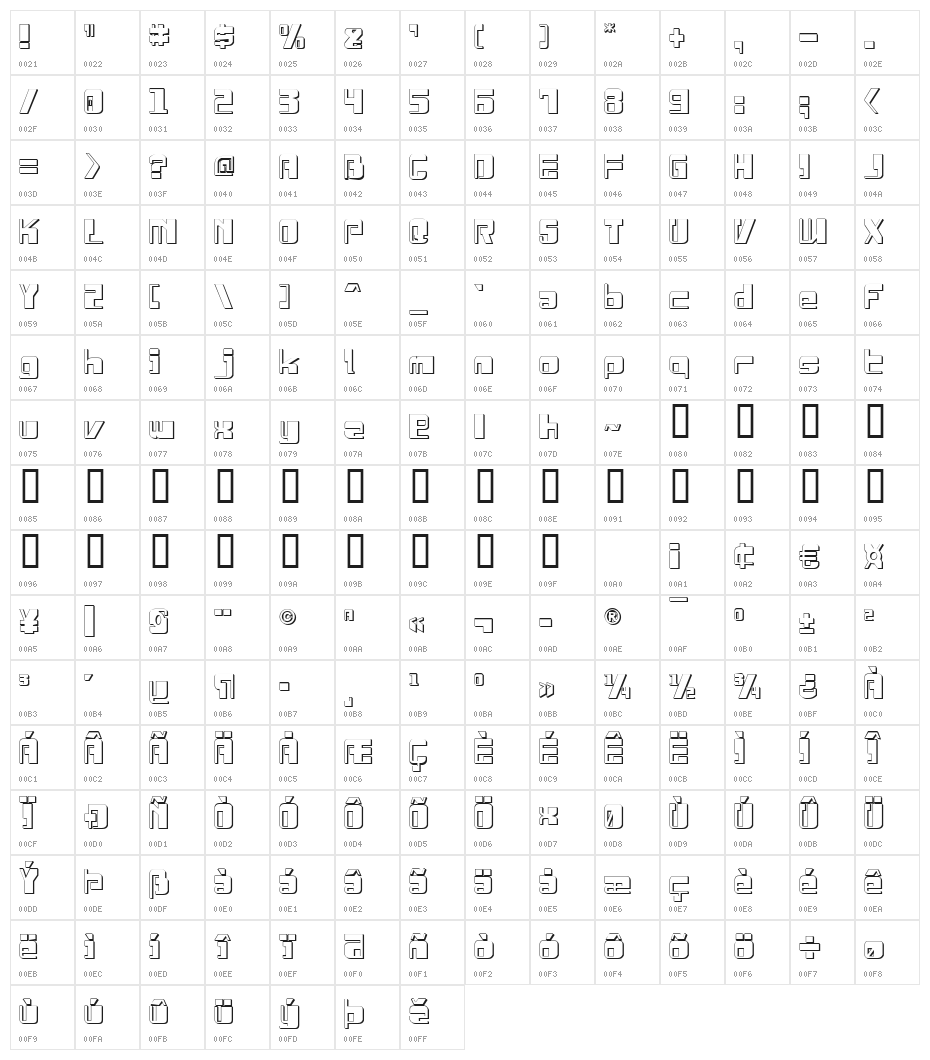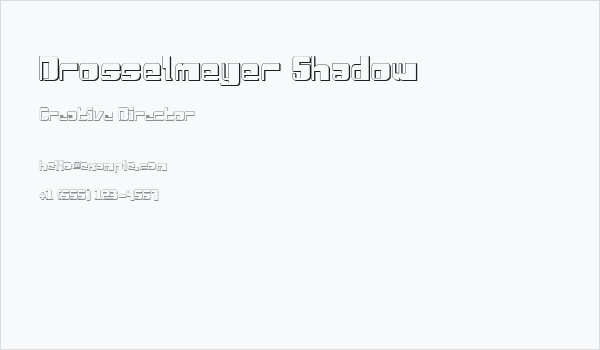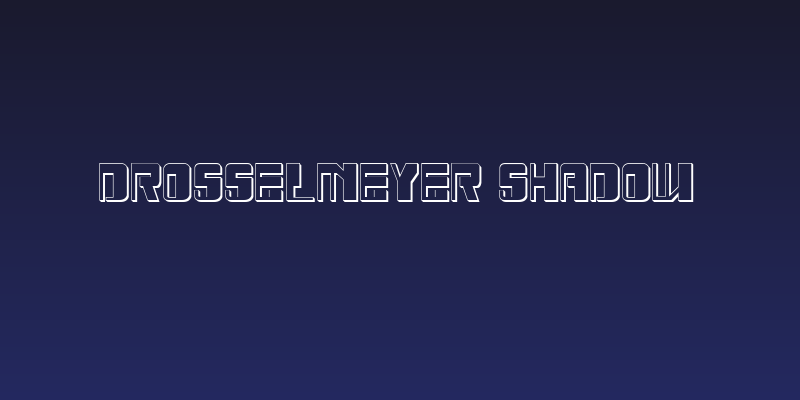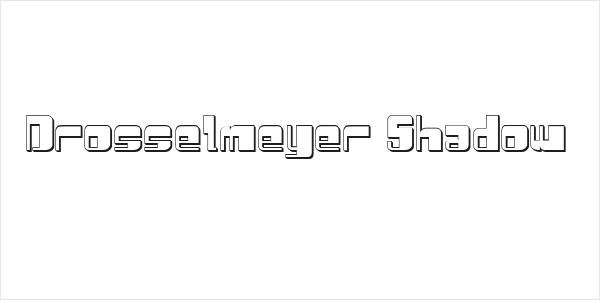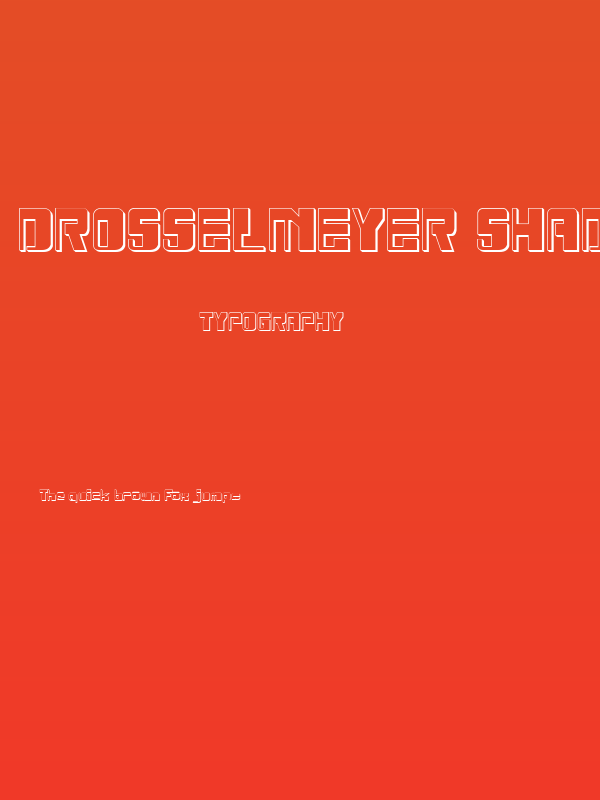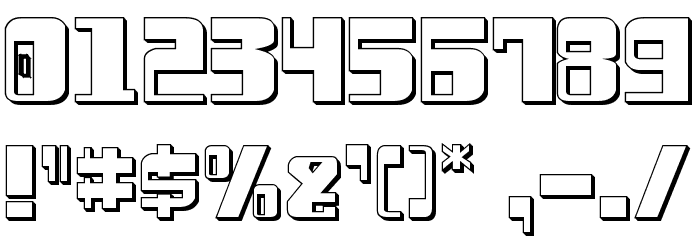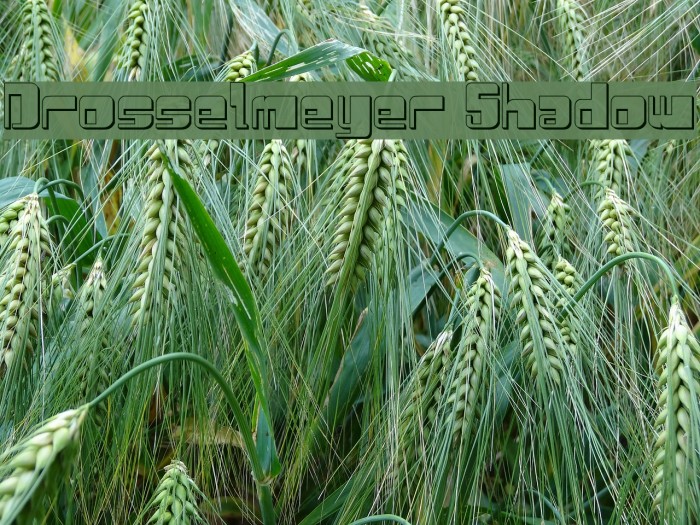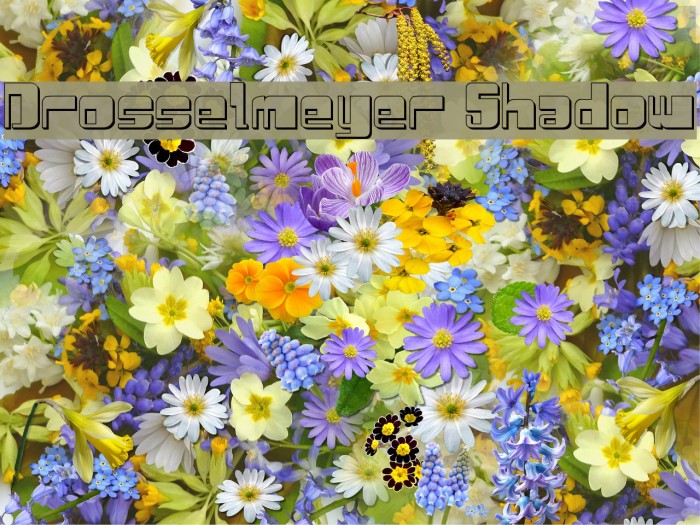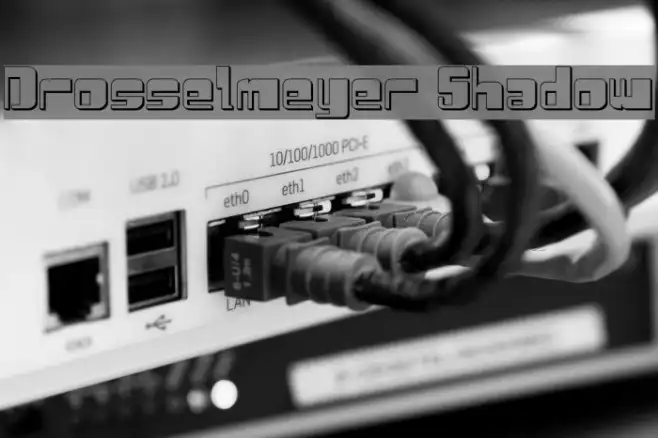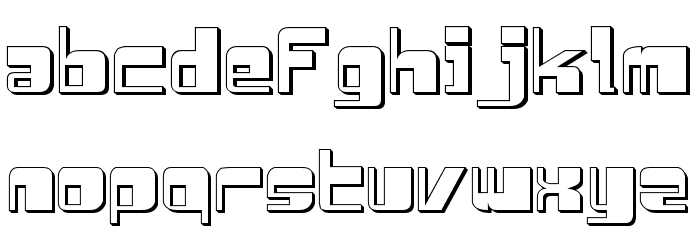
Drosselmeyer Shadow Font
Drosselmeyer Shadow Description
This font features a bold, geometric design with a shadow effect that gives it a three-dimensional appearance. The characters are structured with clean, straight lines and sharp angles, creating a futuristic and modern look. The uppercase and lowercase letters maintain a consistent style, with the shadow adding depth and a unique visual interest. The numerals and special characters follow the same design principles, ensuring uniformity across all glyphs. This font's distinct style makes it suitable for projects that require a standout, eye-catching typeface.
| Proposed Projects | Ideal for futuristic designs, tech branding, video game titles, and sci-fi themed projects. |